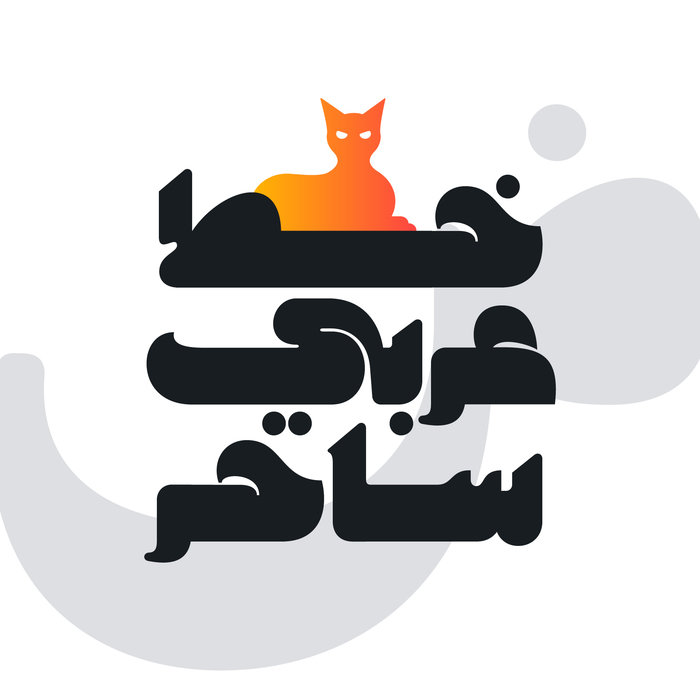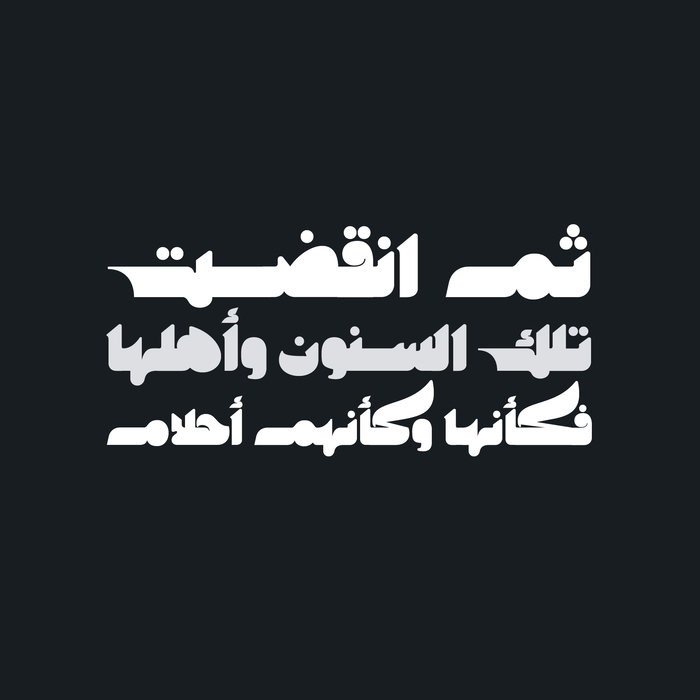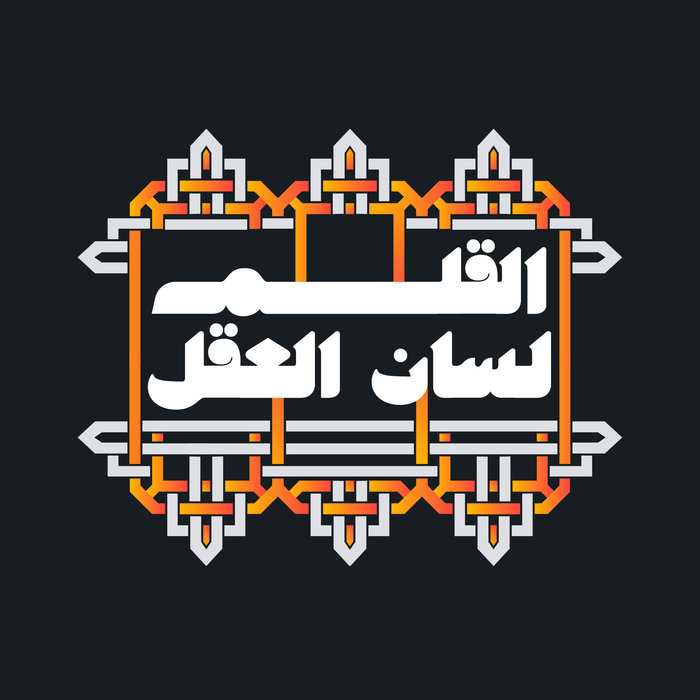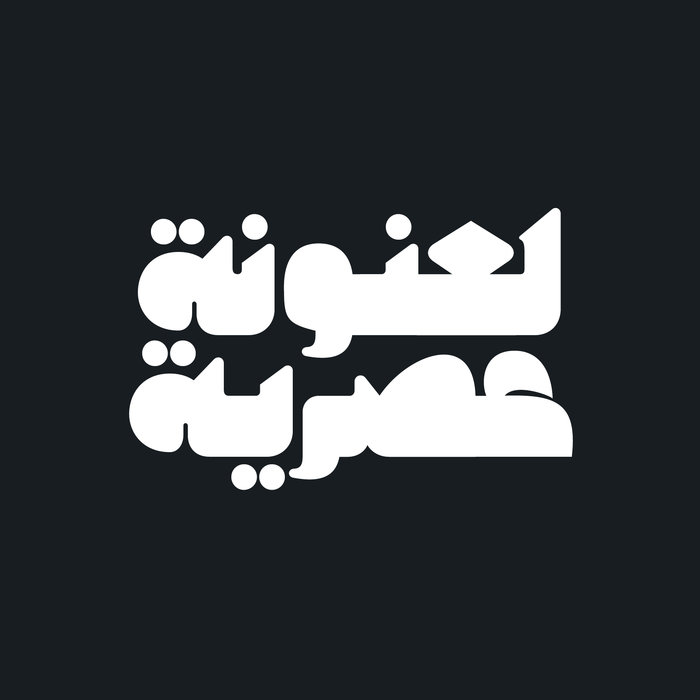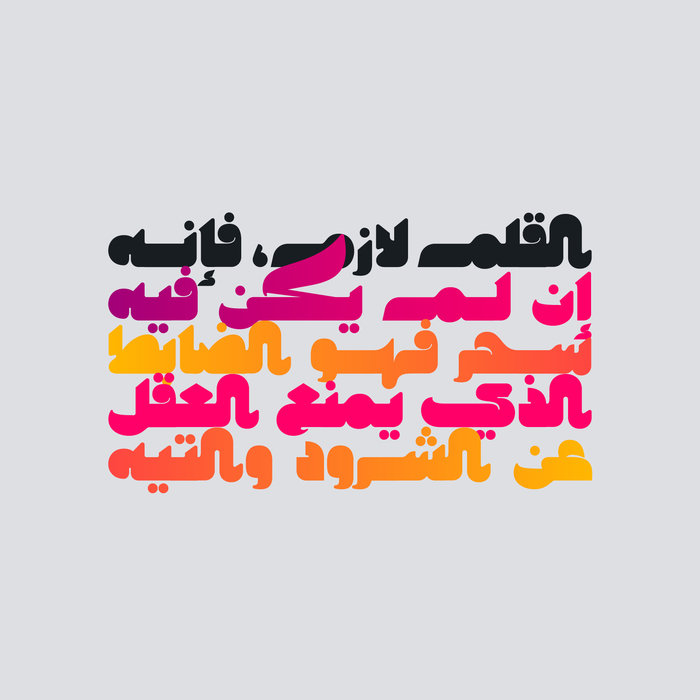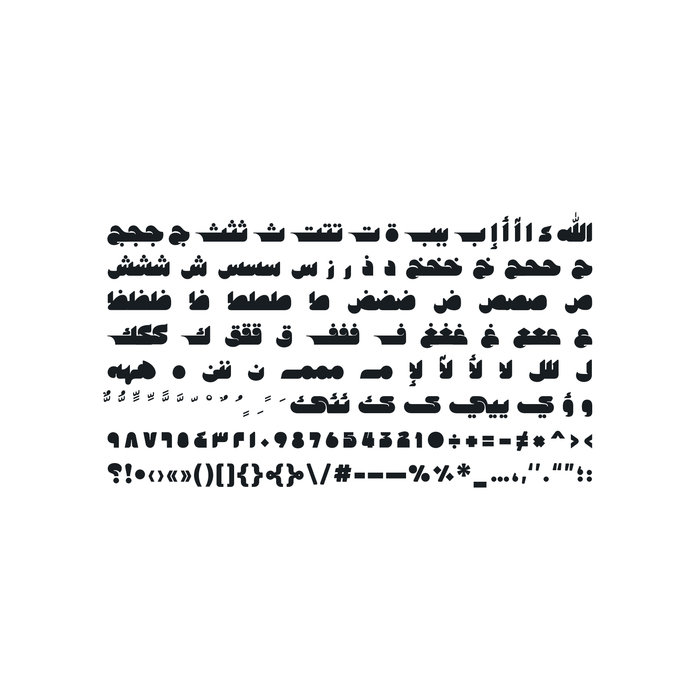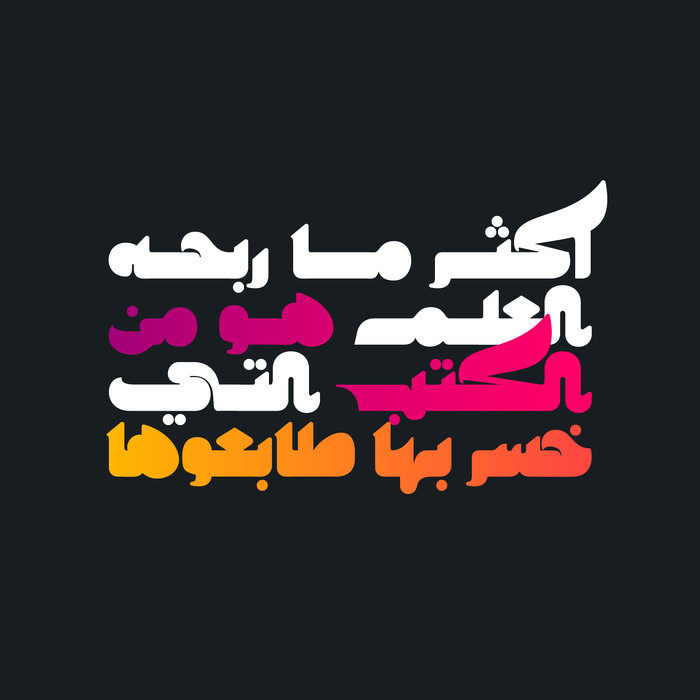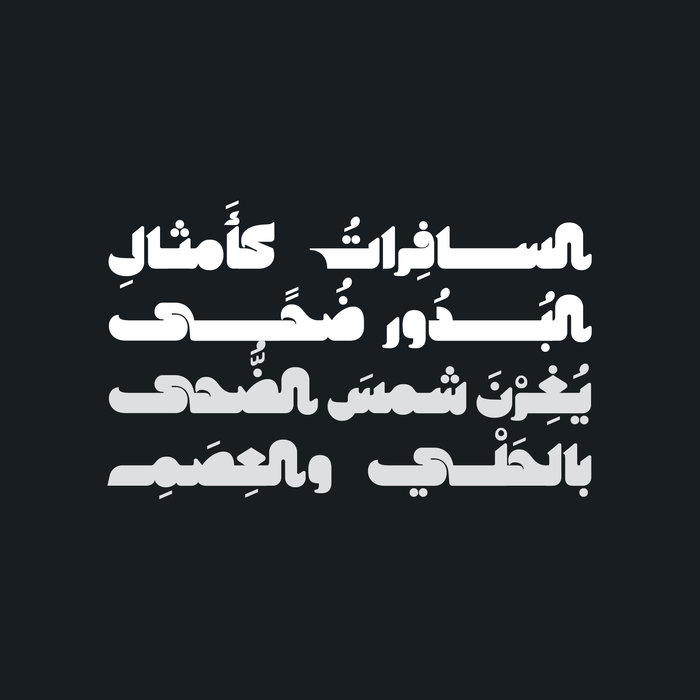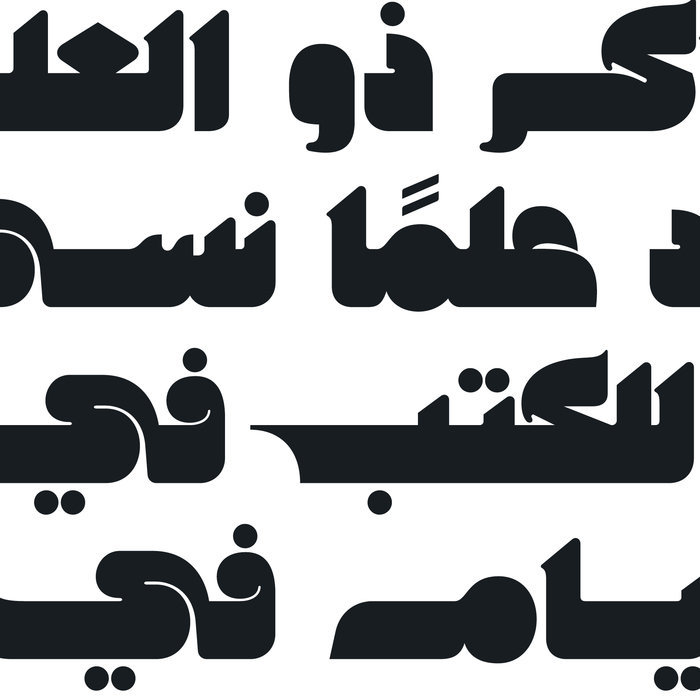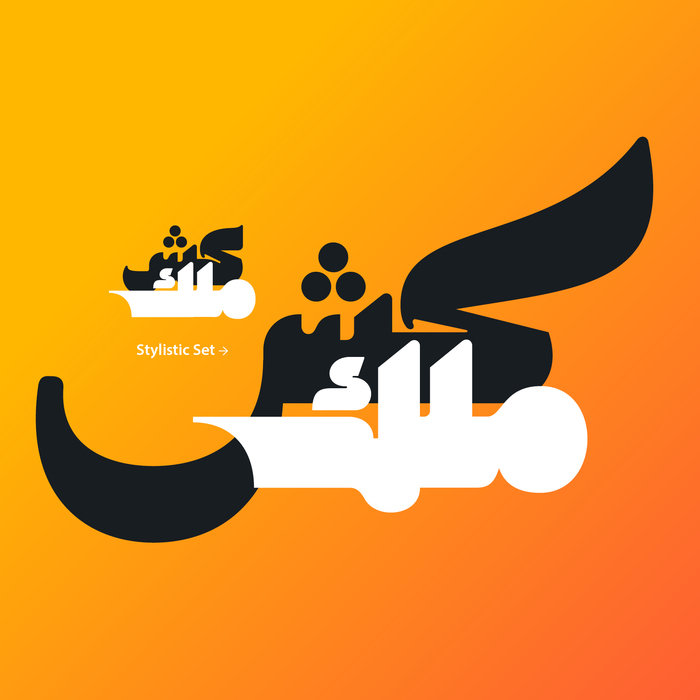
Makana - Arabic Font
Makana (which is the Arabic word for Prestige) is an Arabic display font with contemporary design. The font features an extra heavy letterfom structure that is able to catch attention while adding a destinctive tone of voice to texts. It also features an additional stylistic set of glyphs with calligraphic touch. Makana is suitable for all creative projects including web, print and mobile applications.